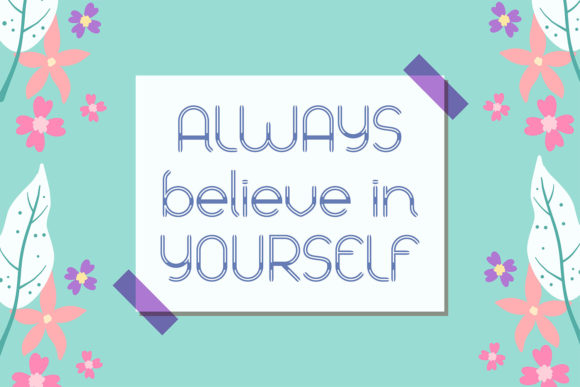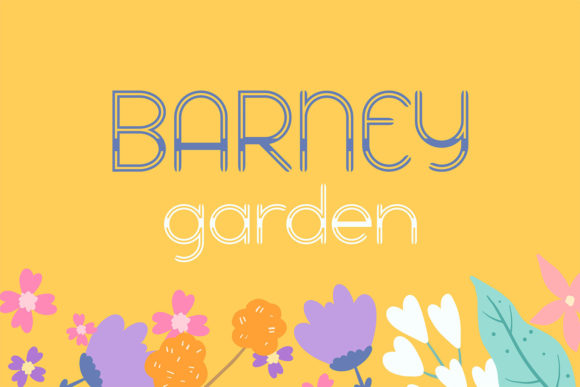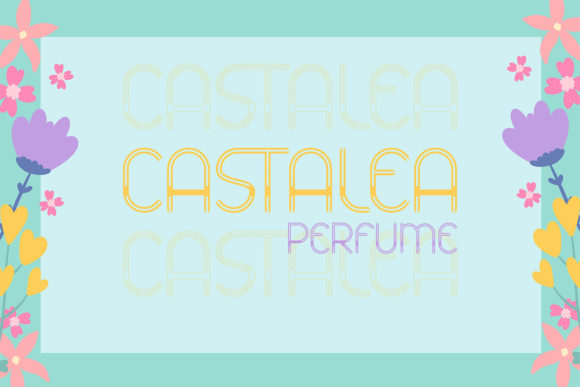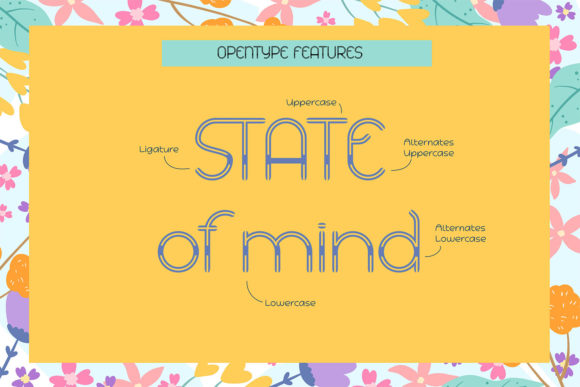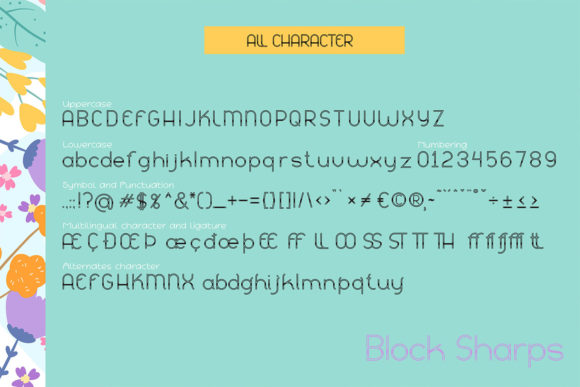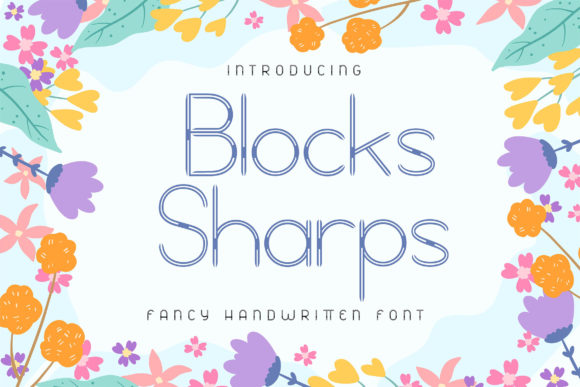
Introducing Block Sharps Font: Elevate Your Crafty Projects with a Creative and Fun Display Font
Are you a designer or crafter looking for a unique and playful font to take your projects to the next level? Look no further than Block Sharps Font! This creative and fun display font is perfect for adding a touch of personality to any crafty project, from banners and covers to titles and posters.
What Makes Block Sharps Font So Special?
Block Sharps Font is a standout font that boasts cute and well-rounded characters, making it perfect for a wide range of applications. Its playful and creative vibe is sure to capture the attention of your audience and leave a lasting impression. Whether you’re working on a DIY project, a craft tutorial, or a marketing campaign, this font is sure to elevate your design and make it more engaging.
Key Features of Block Sharps Font
- PUA Encoded: Block Sharps Font is PUA encoded, which means you can access all of the glyphs and swashes with ease. This makes it simple to customize your text and add unique touches to your design.
- Cute and Well-Rounded Characters: The font features adorable and rounded characters that are sure to bring a smile to your face. Their playful design makes them perfect for a wide range of crafty projects.
- Display Font: Block Sharps Font is a display font, making it perfect for use in titles, headings, and other prominent text elements. Its bold and eye-catching design ensures that your text will stand out.
- Versatile: This font is incredibly versatile and can be used in a wide range of applications, from digital designs to print materials.
Uses for Block Sharps Font
Block Sharps Font is perfect for a wide range of crafty projects, including:
- Banners: Add a touch of personality to your banners with this fun and creative font.
- Covers: Make your book covers, magazine covers, or any other type of cover stand out with Block Sharps Font.
- Titles: Use this font to create eye-catching titles for your blog posts, articles, or videos.
- Posters: Create stunning posters that grab attention with Block Sharps Font.
- DIY Projects: Add a personal touch to your DIY projects, such as crafts, woodworking, or home decor.
Why Designers and Crafters Love Block Sharps Font
Designers and crafters love Block Sharps Font for its unique and playful design. It’s the perfect way to add a touch of personality to any project and make it stand out. The font’s versatility and ease of use make it a go-to choice for anyone looking to elevate their design.
Tips for Using Block Sharps Font
- Experiment with Different Sizes: Block Sharps Font looks great in a variety of sizes, so don’t be afraid to experiment and find the perfect size for your project.
- Pair with Other Fonts: Try pairing Block Sharps Font with other fonts to create a unique and eye-catching combination.
- Use Swashes and Glyphs: Take advantage of the font’s PUA encoding and use the swashes and glyphs to add a personal touch to your design.